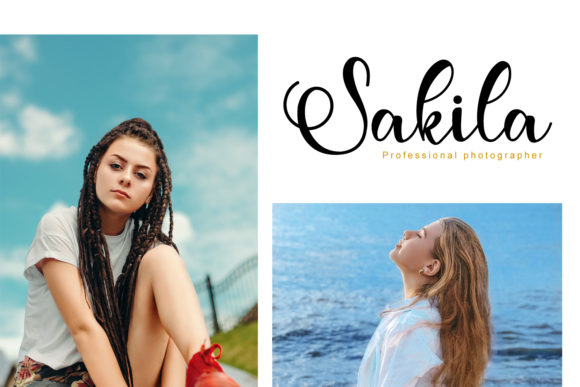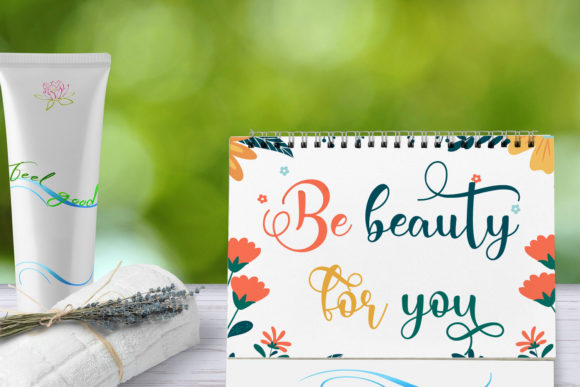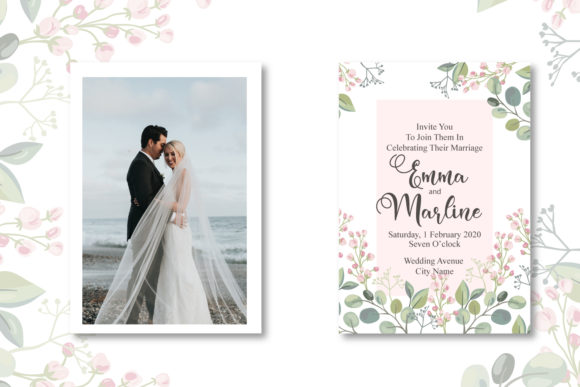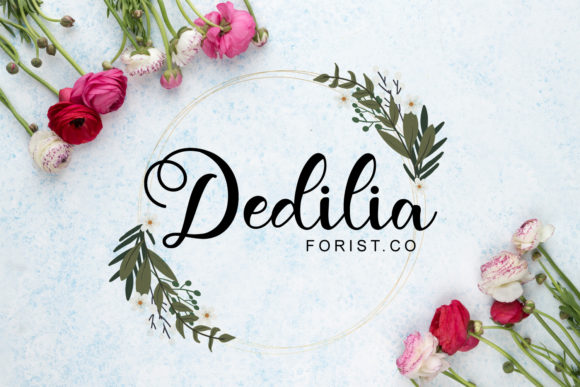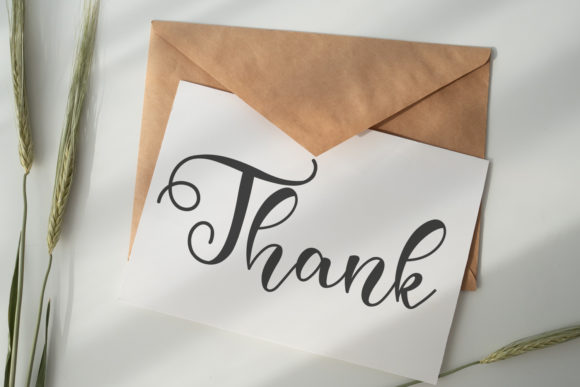
Adelisa Font
About Adelisa Font
Adelisa feels incredibly romantic and flowing. It looks spectacular on wedding invitations, thank you cards, quotes, greeting cards, logos, business cards and every other design which needs a handwritten touch. It features a varying baseline, smooth lines, gorgeous glyphs and stunning alternates.